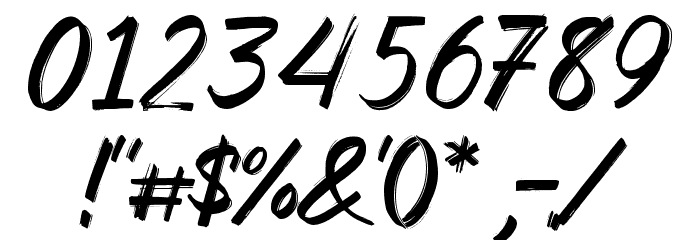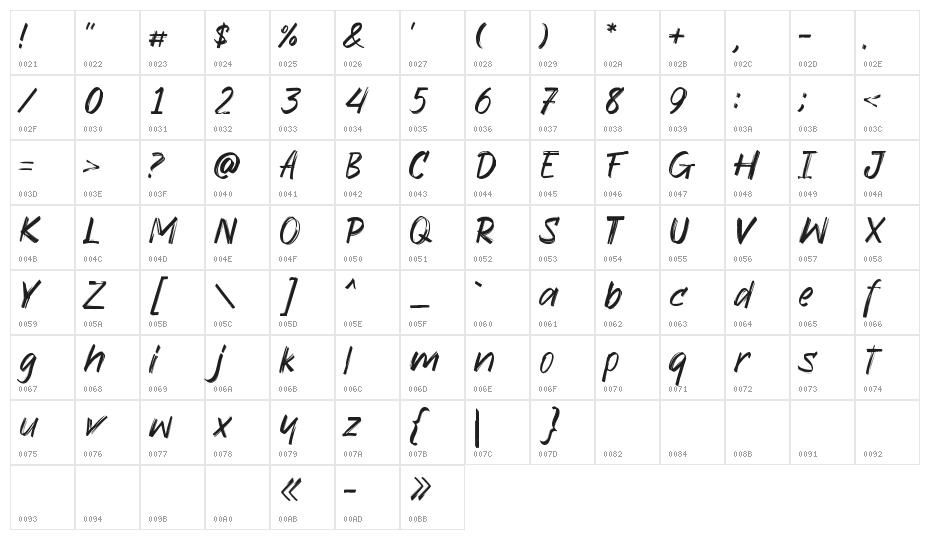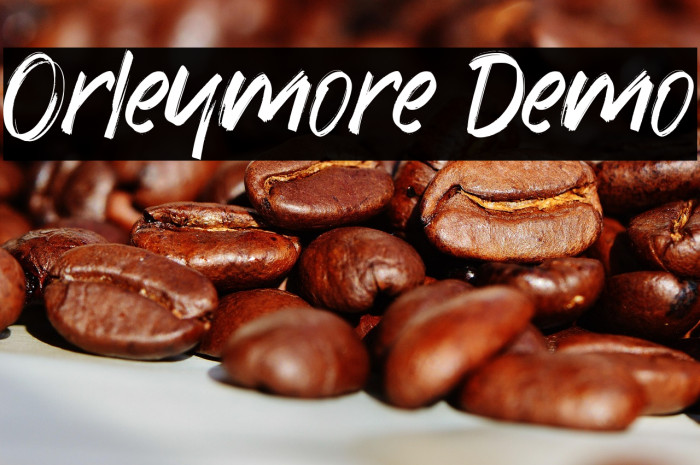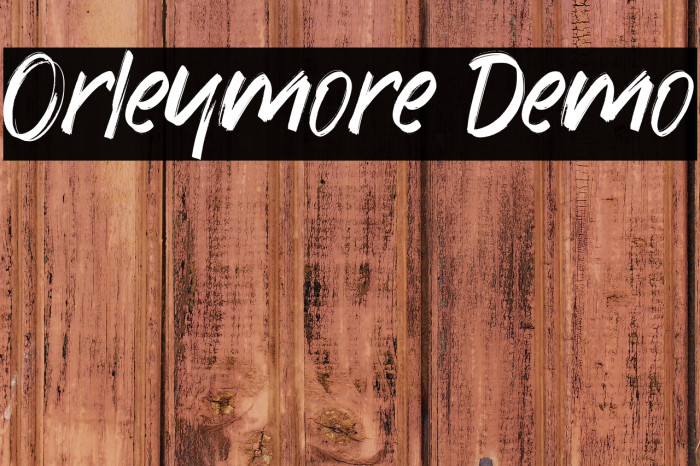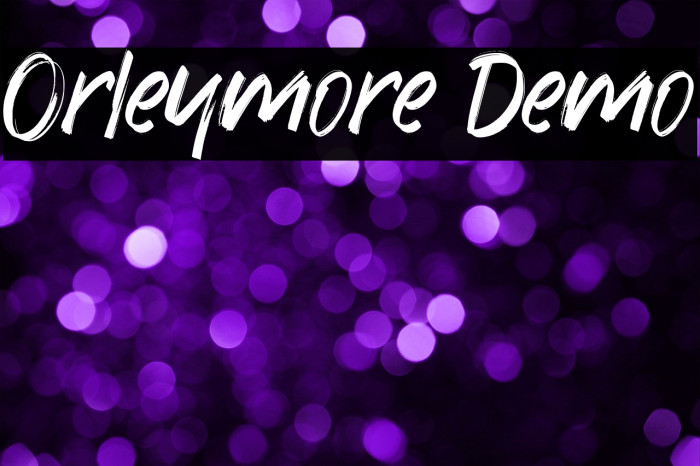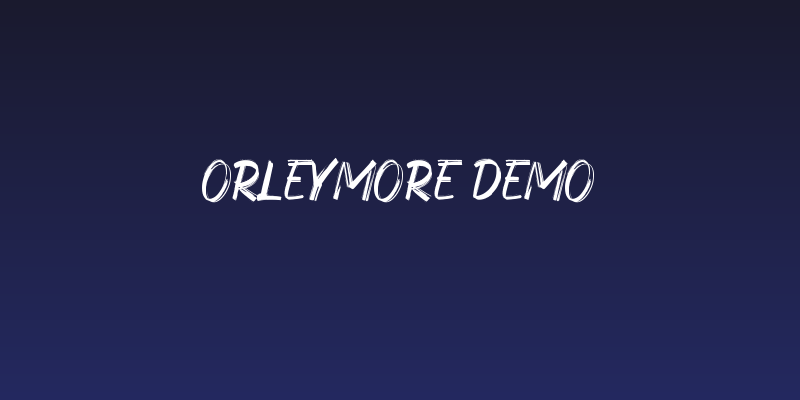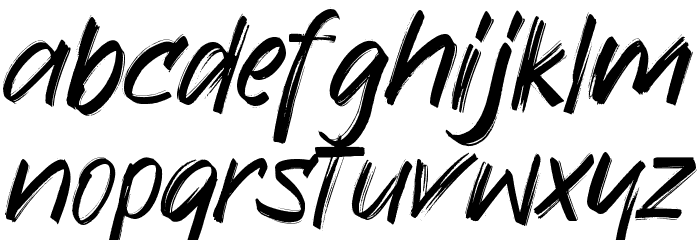
Orleymore Demo Font
Orleymore Demo Description
This font exudes a dynamic and energetic style, characterized by its bold, brush-like strokes that convey a sense of movement and spontaneity. The letters have a hand-drawn quality, with varying stroke widths that add a lively and informal touch. The uppercase and lowercase letters maintain a consistent style, with a slightly slanted orientation that enhances the impression of speed and fluidity. The numbers and special characters follow the same expressive design, making them suitable for creative and artistic projects. Overall, this font is perfect for designs that aim to capture attention and convey a sense of creativity and freedom.